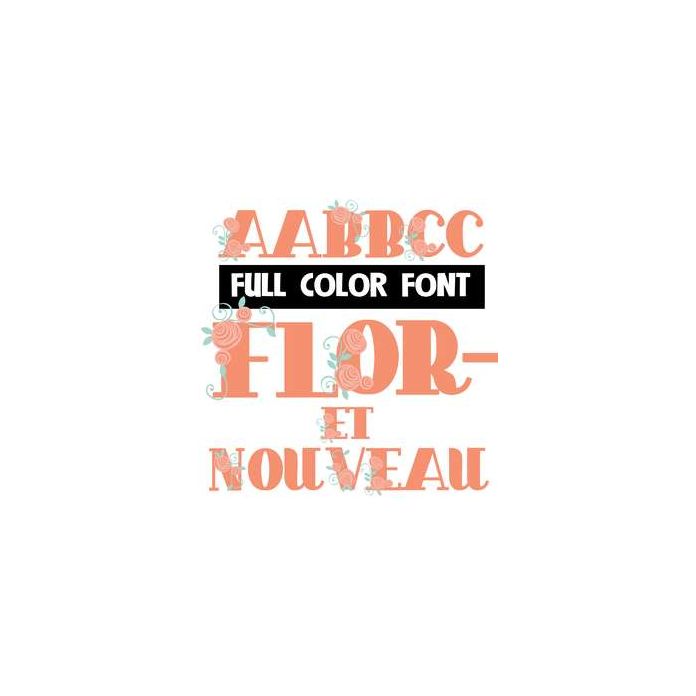
This adorable spring/Easter full-color font features an uppercase with pretty florals and a lowercase without. This font works best for titles, displays, posters and more. Please note color fonts will show as black in non compatible programs. This font type is compatible with Silhouette Studio.